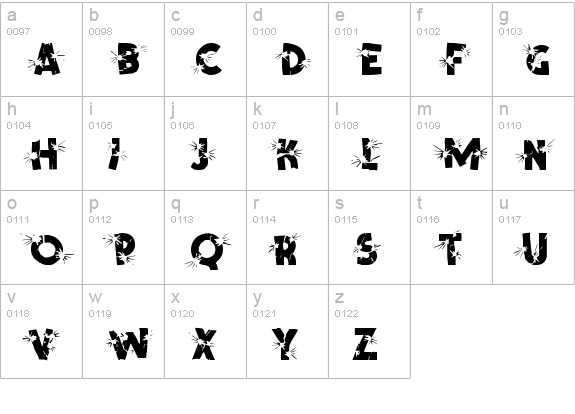
Shrapnel Font Details
Introducing Shrapnel, a captivating and edgy font that will make your designs explode with creativity! With its sharp angles and rugged appearance, Shrapnel is the perfect choice for projects that require a touch of dynamism and an unmistakable impact. This one-of-a-kind typeface is not only visually striking but also incredibly versatile. Its unique character set includes uppercase and lowercase letters, numbers, punctuation marks, and special symbols, allowing you to create eye-catching headlines, captivating logos, and impressive branding materials. But what truly sets Shrapnel apart is its accessibility. We believe that great design should be available to everyone, and that's why we are delighted to offer this font for free! Yes, you read that right – Shrapnel is freely available to download at FontsMarket.com. Whether you're a designer on a budget, a small business owner seeking to make a bold statement, or simply someone who appreciates high-quality typography, Shrapnel is the perfect choice for you. Its unique and powerful aesthetic will undoubtedly leave a lasting impression on anyone who encounters it. So, don't miss out on the opportunity to unleash the explosive potential of Shrapnel in your next project. Download it now, free of charge, at FontsMarket.com, and let your creativity soar to new heights.